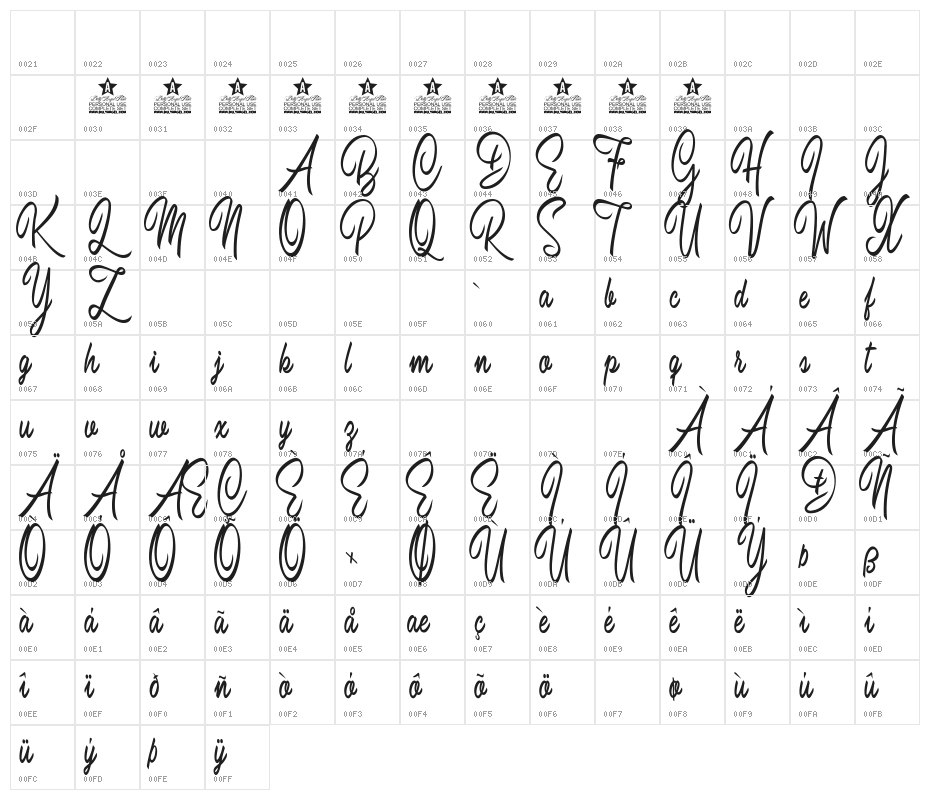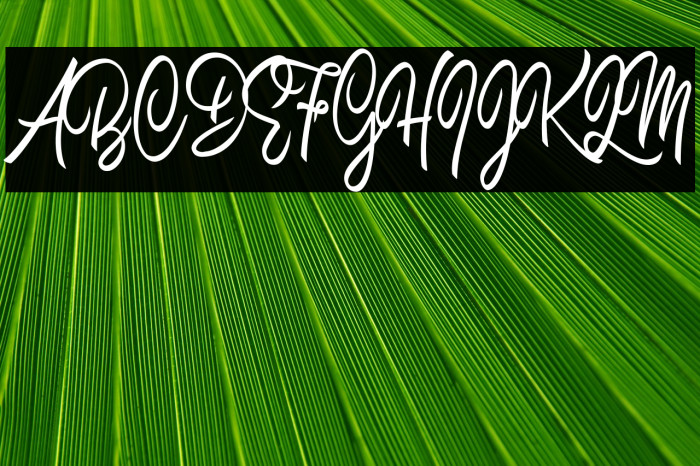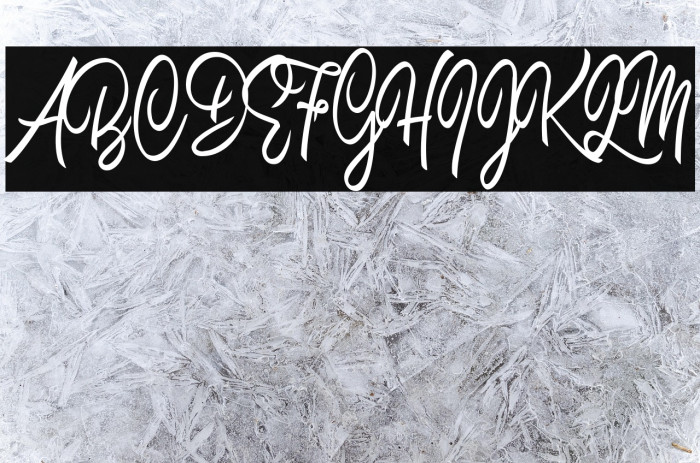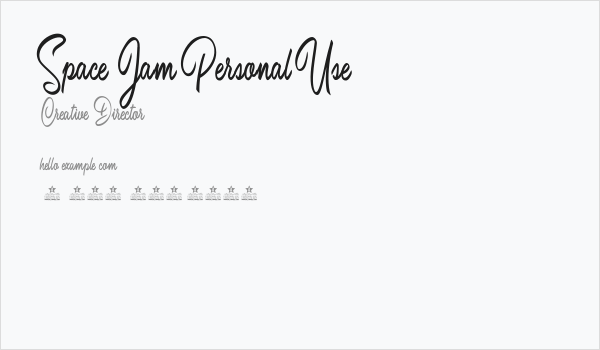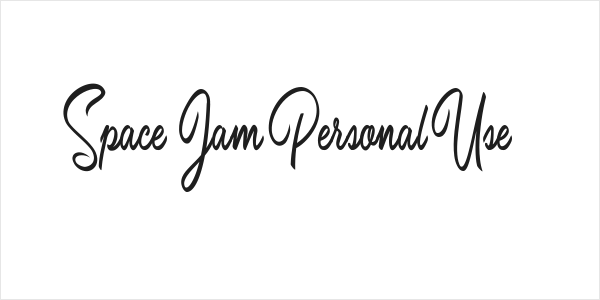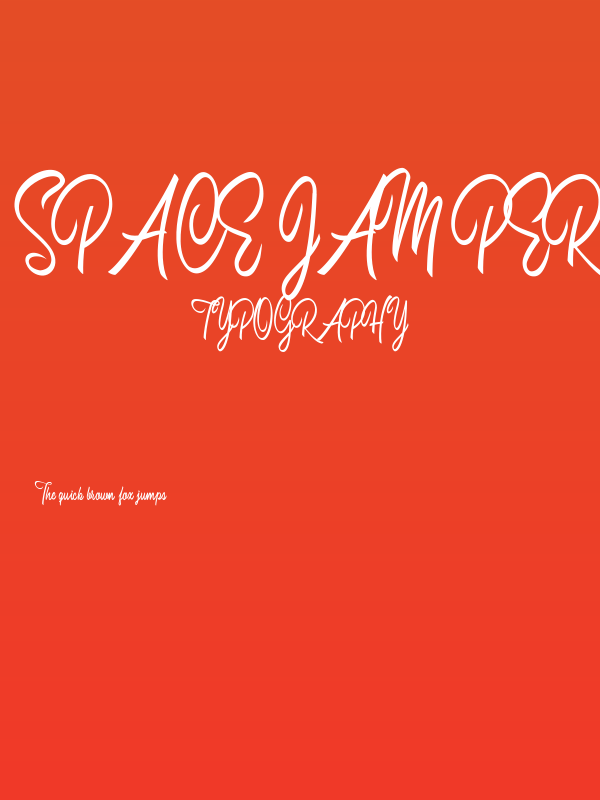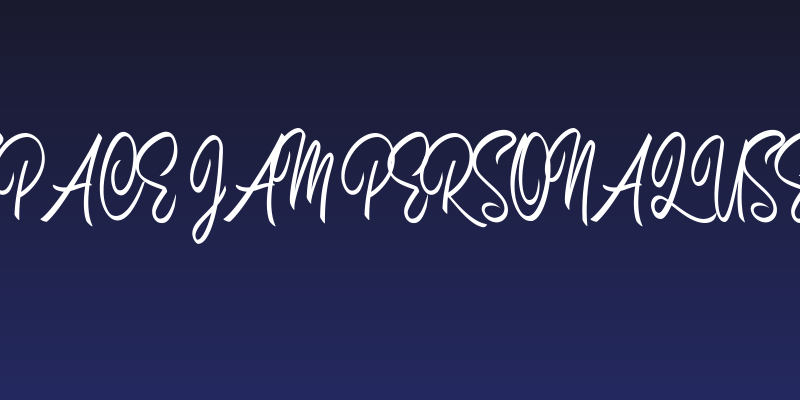
Space Jam Personal Use Font
Space Jam Personal Use Description
This font features a dynamic and flowing script style, characterized by its elegant and cursive letterforms. The uppercase letters are particularly ornate, with sweeping curves and loops that give a sense of movement and fluidity. The lowercase letters maintain this cursive style, offering a consistent and harmonious look across all characters. The font includes a full set of numerals and a selection of special characters, ensuring versatility for various design needs. Its bold strokes and high contrast between thick and thin lines enhance its readability while maintaining a decorative flair.